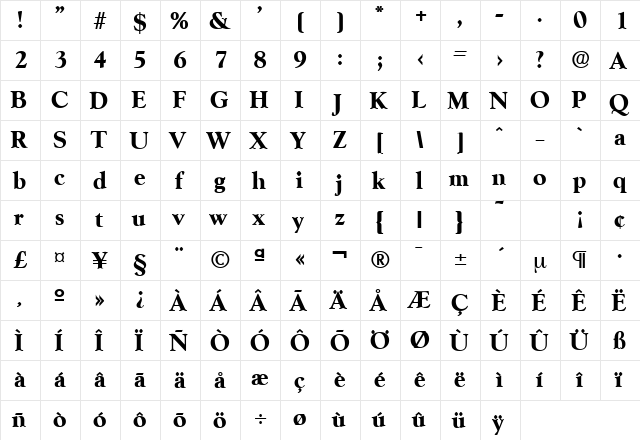
Goudy-Serial-ExtraBold Regular
Design Context for Goudy-Serial-ExtraBold Typeface
Goudy-Serial-ExtraBold offers clean, dependable letterforms without strong stylistic allegiance, making it a practical choice for designers who need flexibility. The heavy weight commands attention and anchors typographic hierarchies.